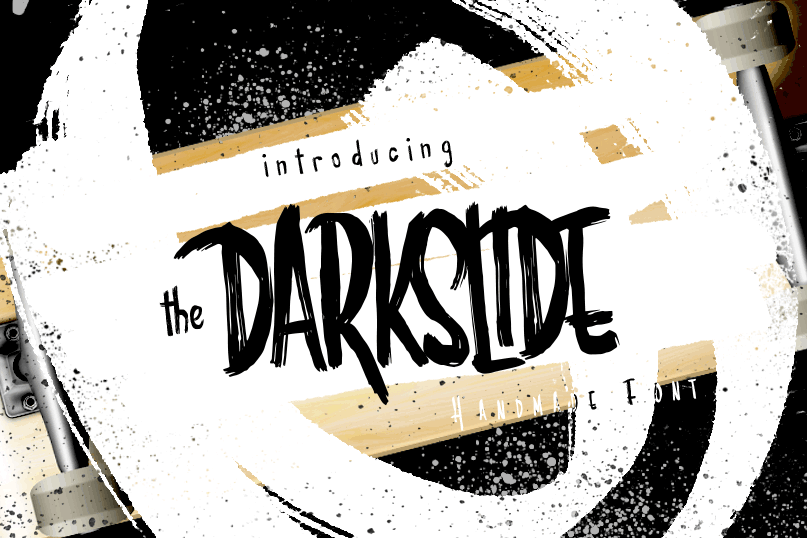
DarkSlide Font
DarkSlide is inspired by Rodney Mullen Skateboard tricks. That awesome tricks and impossible tricks for me. DarkSlide can be used for various purposes.such as headings, logos, t-shirt, letterhead, label, posters, badges etc.
- Discretionary Ligatures